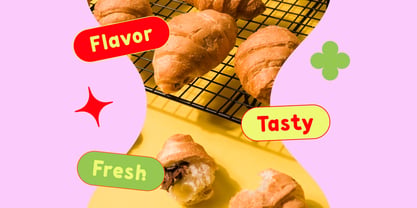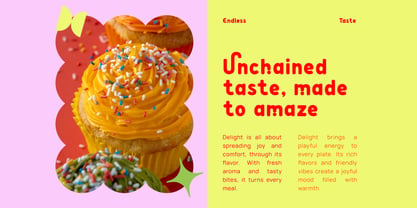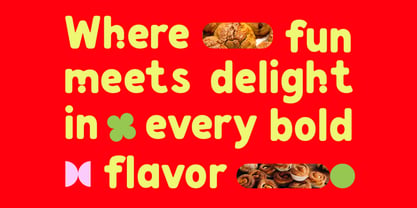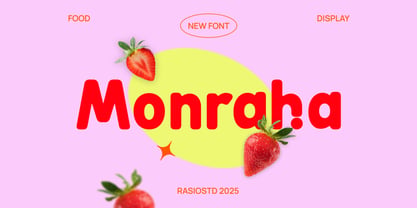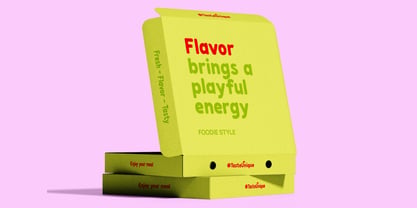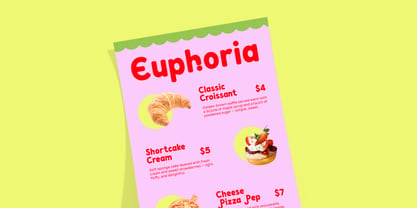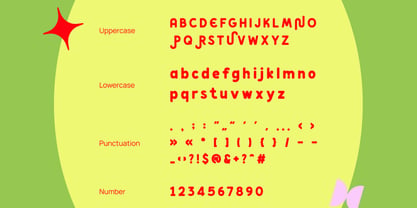
Monraha
by Rasio Studio
The Monraha Font Family was designed by Fajar Indra and published by Rasio Studio. Monraha contains 1 styles. More about this family
Monraha Fun Rounded Display Font brings cheerful energy and bold personality to your designs. With its soft curves, geometric forms, and playful rhythm, Monraha captures the spirit of joy and creativity. Its bouncy shapes and rounded edges make it stand out in food branding, children’s products, social media graphics, and colorful packaging design. Includes uppercase and lowercase letters, numerals, and punctuation characters. Monraha is a versatile, friendly display typeface that radiates warmth and modern fun — perfect for projects that aim to feel vibrant and approachable.